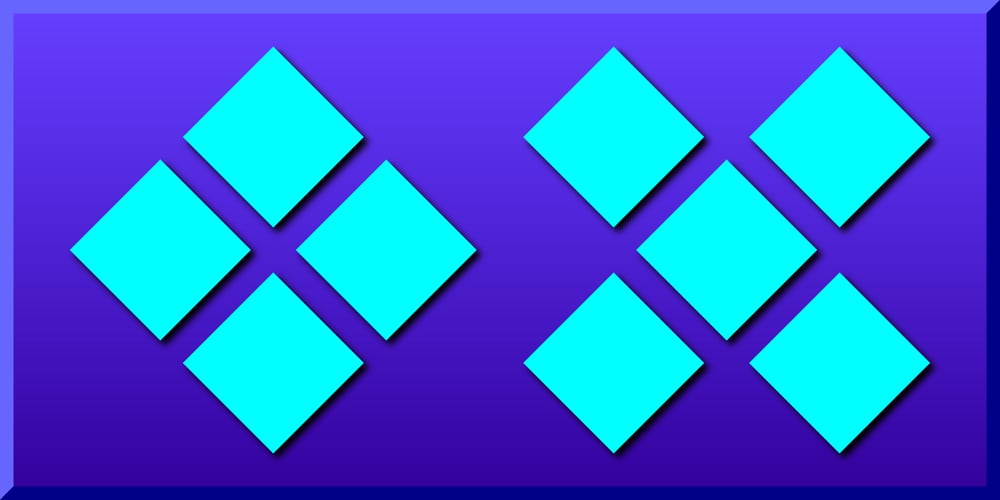
Simple Ornaments Font Family was designed by Gerald Gallo and published by Gerald Gallo. Simple Ornaments contains 1 styles and family package options. Simple Ornaments is a collection of ornaments composed of squares, circles, and rectangles. They are ideal for use where a simple ornament is desired as an accent to a type element, such as a title, label, contact information, etc.; or to separate type elements; or for use as bullets. There is an assortment of 168 ornaments.